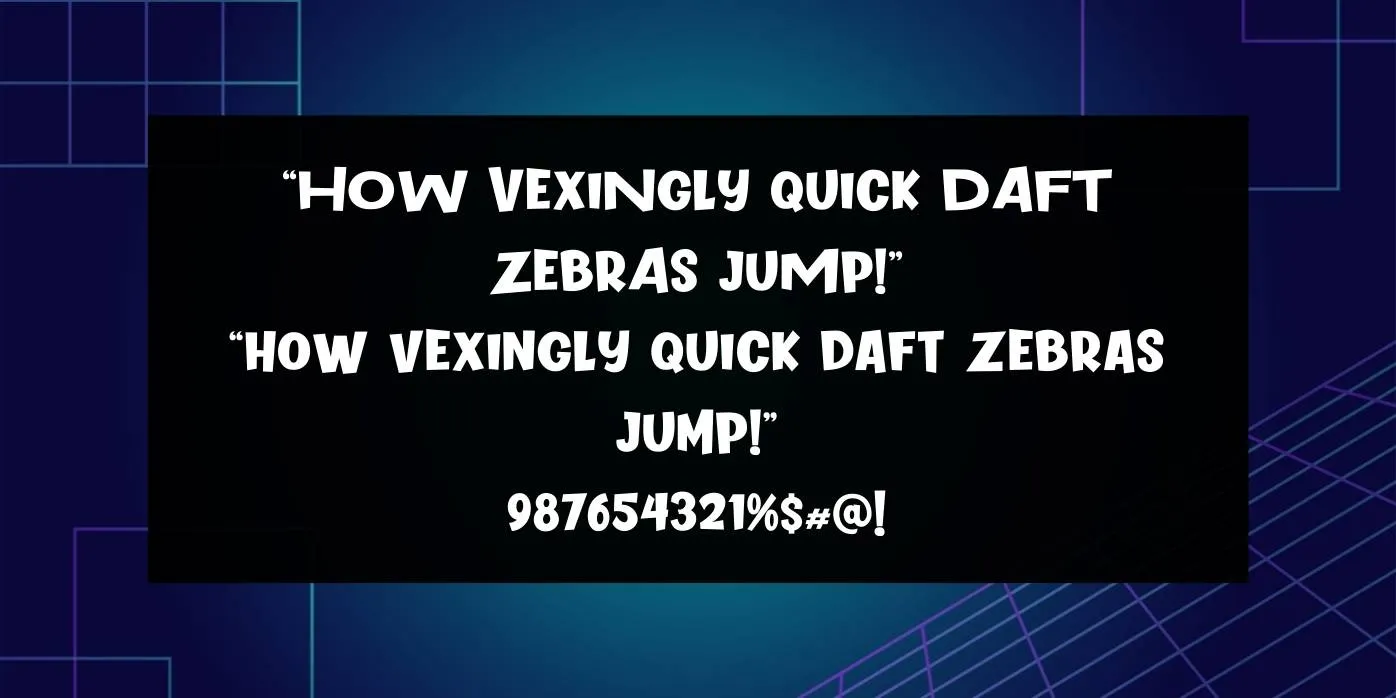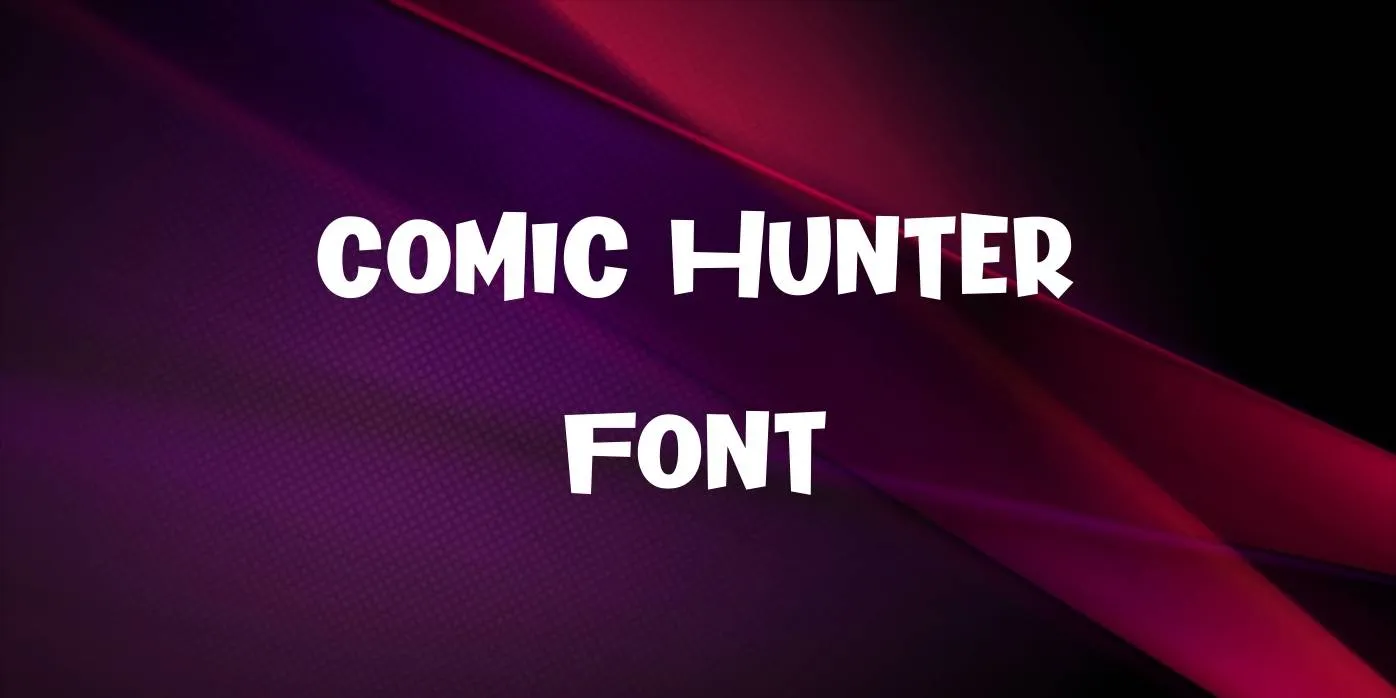
Comic Hunter Font
Comic Hunter Font is a fancy typeface which is created by Amercian artist and graphic designer David Hunter. This font was designed by hand-lettered logos and titles of 1950s comic books, It is available in two styles which makes It look elegant regular, and bold. It was first designed in 2006 and published by DHF Fonts (David Hunter’s Foundry). It is easy to download for Mac and Windows.
The huge range of weights and different styles makes it more versatile and it generates a very funny and interesting look to your project. It contains 251 characters and 211 glyphs. It has many features like capital letters, numbers, special characters,s, and symbols. So it can be used for making your project look more attractive with a touch of comic texture.
Its all-caps features gave it a very strong and attractive look.